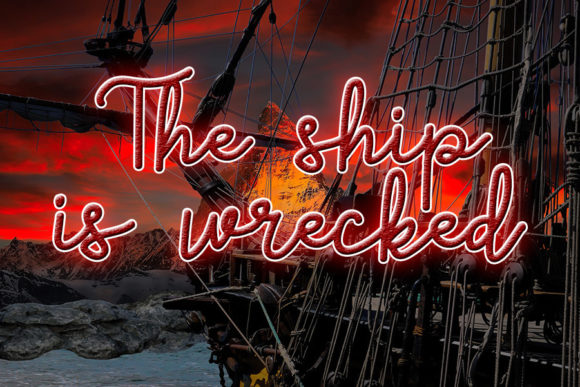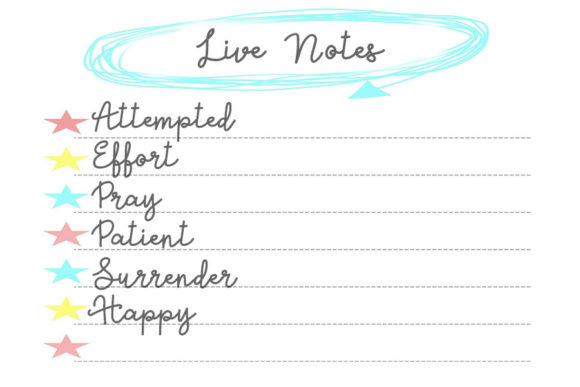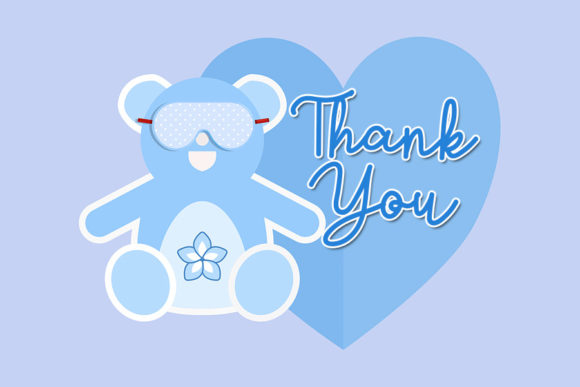
Introduction to Memories Font
Remember that moment when a burst of creativity hit you, and your imagination ran wild? You envisioned a beautiful, whimsical design that would capture the essence of your creative project. For designers, finding the perfect design resource can be a challenge, but what if I told you that the perfect font is just around the corner?
Meet Memories Font, a stunning, high-quality handwritten font that’s sure to elevate your creative projects to new heights. With its warm, romantic, and jolly vibe, this versatile font is perfect for designers who want to add a personal touch to their work. Whether you’re working on a graphic design project or creating digital art, Memories Font is an excellent choice that will make your designs stand out from the crowd.
Key Features of Memories Font
- High-quality design resource ideal for creative projects and personal use
- Features a transparent background, allowing for easy layering and customization in design software
- Includes a comprehensive character set, covering a wide range of languages and alphabets
- Designed with a unique, stylized aesthetic that adds a touch of elegance to any creative project
Honest Review: Memories Font
I recently had the chance to work with the Memories Font, and I must say it’s been a delightful experience. As a designer, I’m always on the lookout for high-quality design resources that can elevate my creative projects.
What works well with Memories Font is its versatility and range of styles. I can use it for anything from romantic wedding invitations to nostalgic birthday cards. The font is also available as a free download, which is a definite plus. The transparent background makes it easy to layer with other design elements and create unique compositions.
- ✨ Customizable: Memories Font offers a range of styles and variations that can be easily customized to fit any design project.
- ✨ Versatile: From romantic to nostalgic, Memories Font can be used for a wide range of creative projects.
However, I did encounter some limitations while working with Memories Font. The font can be a bit too ornate for some designs, and the high level of detail can make it difficult to read at smaller sizes.
Overall, I’m impressed with Memories Font, and I would definitely recommend it to fellow designers. It’s a high-quality design resource that can add a unique touch to any creative project.
- ⚠️ Limited use cases: Memories Font may not be suitable for designs where simplicity and legibility are paramount.
- ⚠️ Detail can be overwhelming: At smaller sizes, the font’s high level of detail can make it difficult to read.
Tips for Getting the Most Out of Memories Font
Experiment with different font sizes and styles to create visually appealing designs. Use the Memories Font in combination with other design elements to add depth and interest to your project.
The Memories Font is ideal for creating invitations, greeting cards, and other personal projects. Its unique design and transparent background make it perfect for overlaying on images or other design elements.